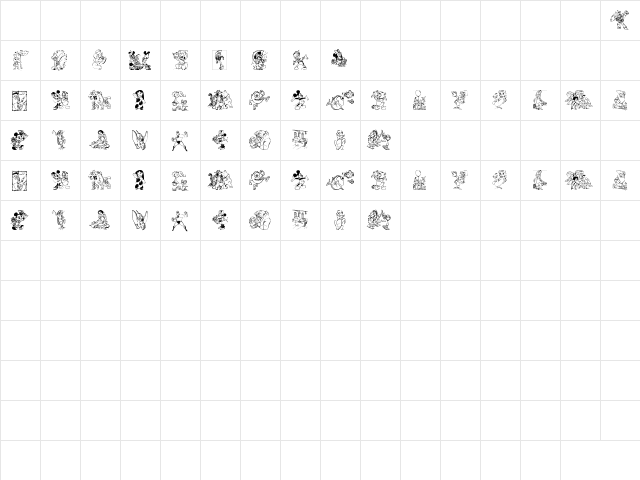
Disney family 1 Regular
Design Context for Disney family 1 Typeface
Disney family 1 is a composed and adaptable typeface that performs quietly and consistently across a wide range of design contexts.